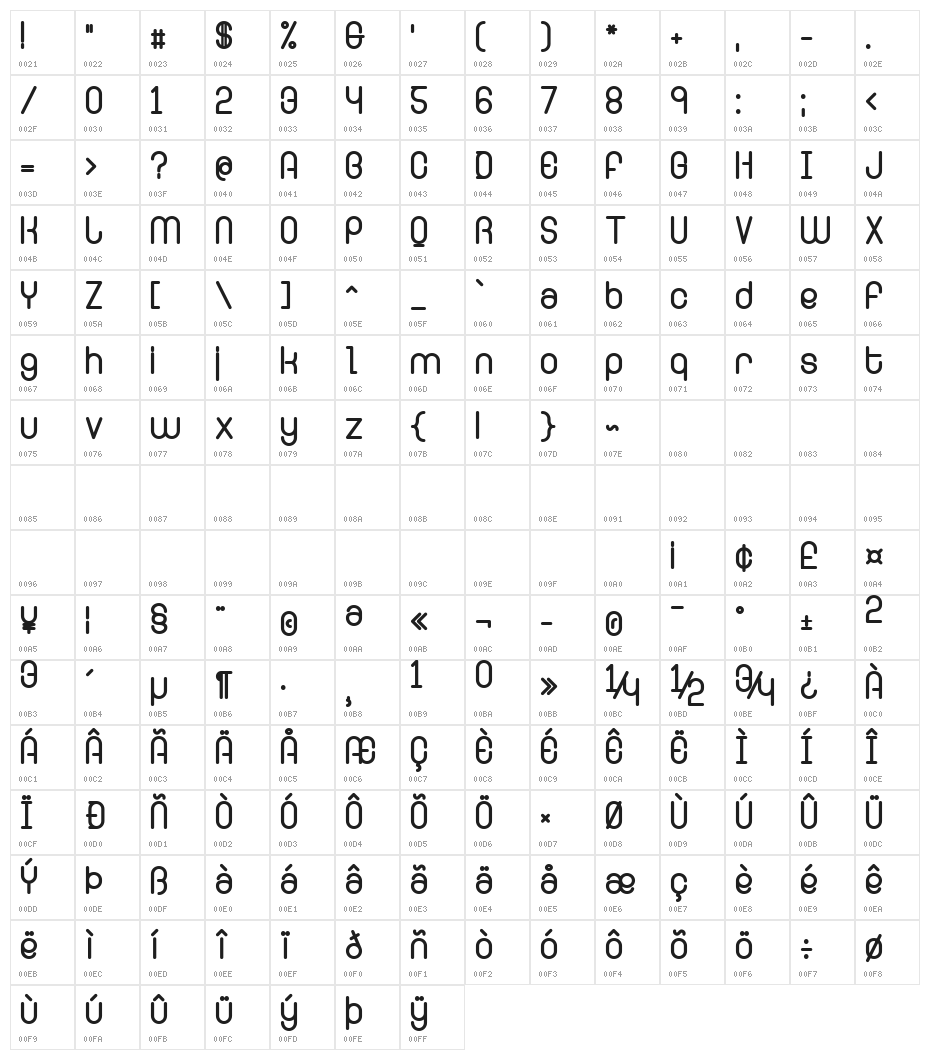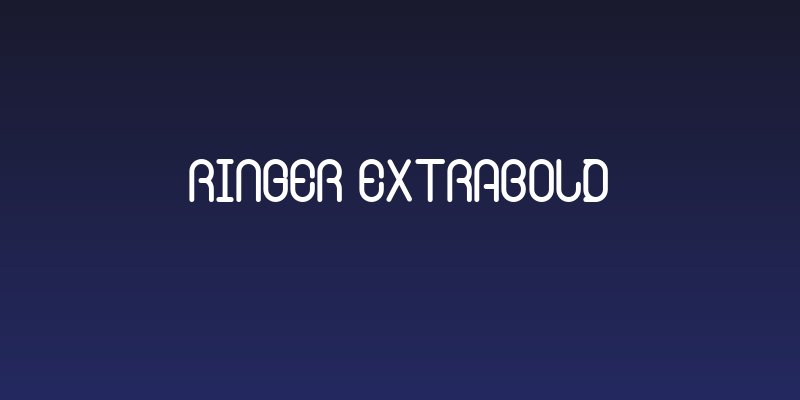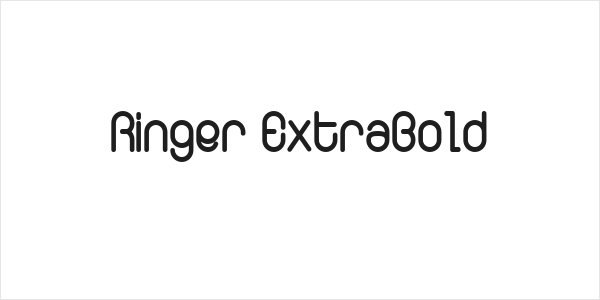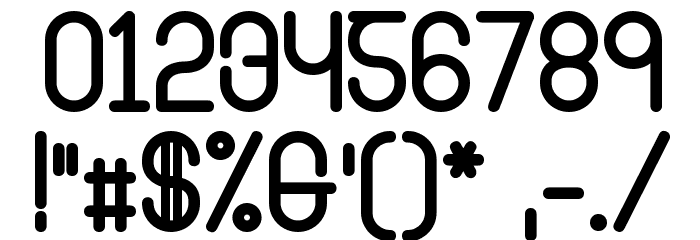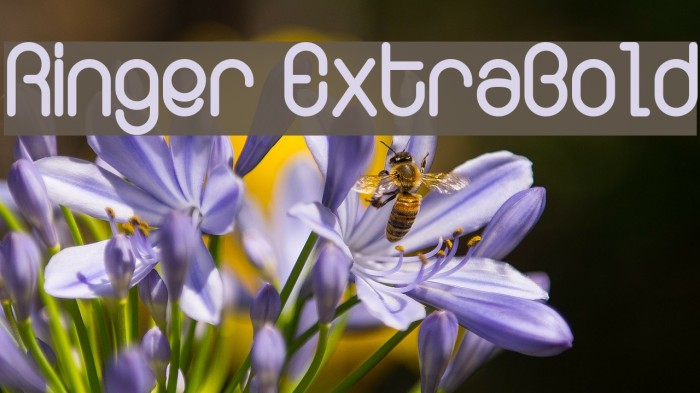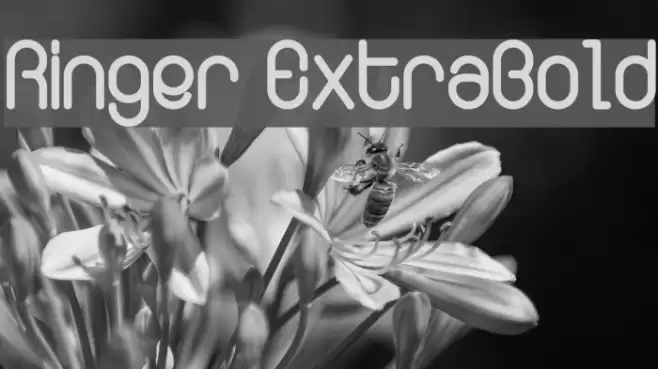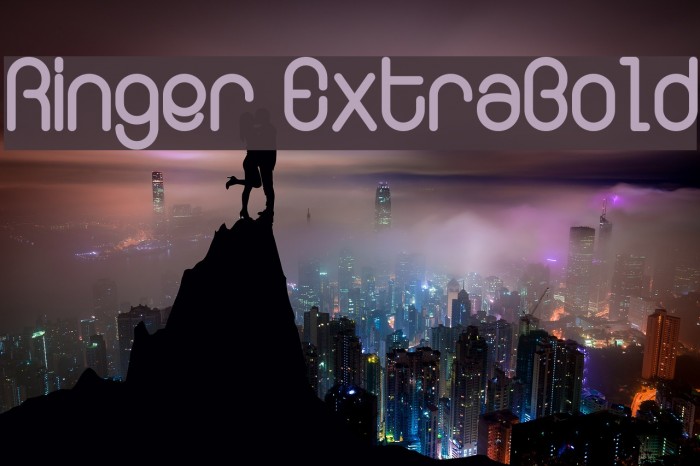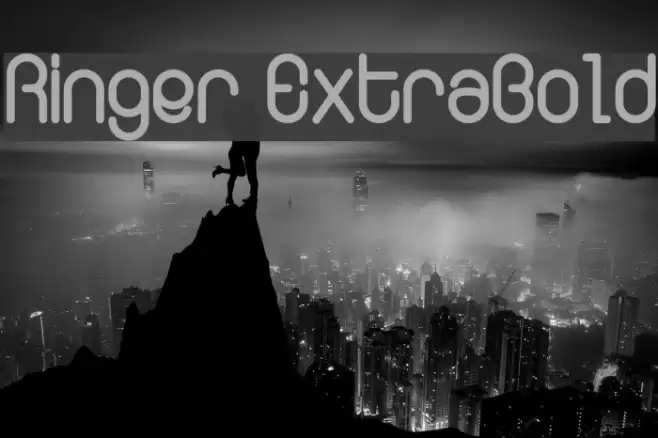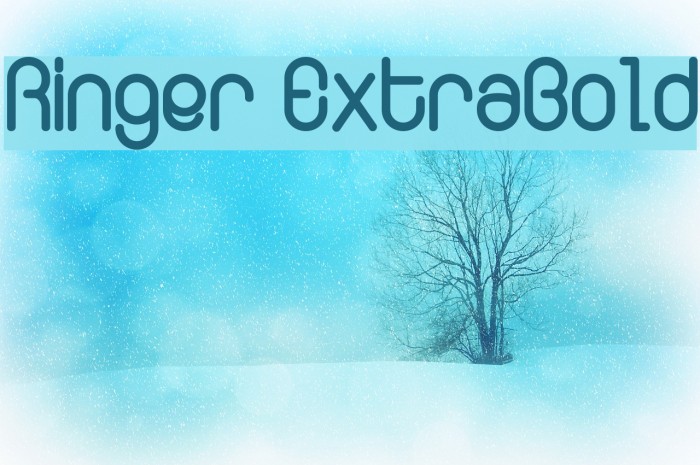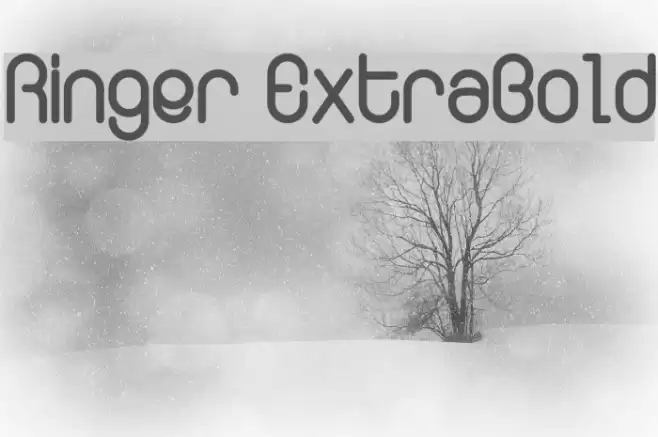
Ringer ExtraBold Font
Ringer ExtraBold Description
This font features a bold, rounded style with a modern and playful aesthetic. The characters are uniformly thick, providing a consistent and cohesive look across both uppercase and lowercase letters. The rounded edges and smooth curves give it a friendly and approachable feel, making it suitable for a variety of design projects. The numerals and special characters maintain the same rounded and bold characteristics, ensuring visual harmony throughout. Its unique style is eye-catching, making it ideal for projects that require a standout typeface.
| Proposed Projects | Ideal for branding, headlines, posters, and packaging design. |